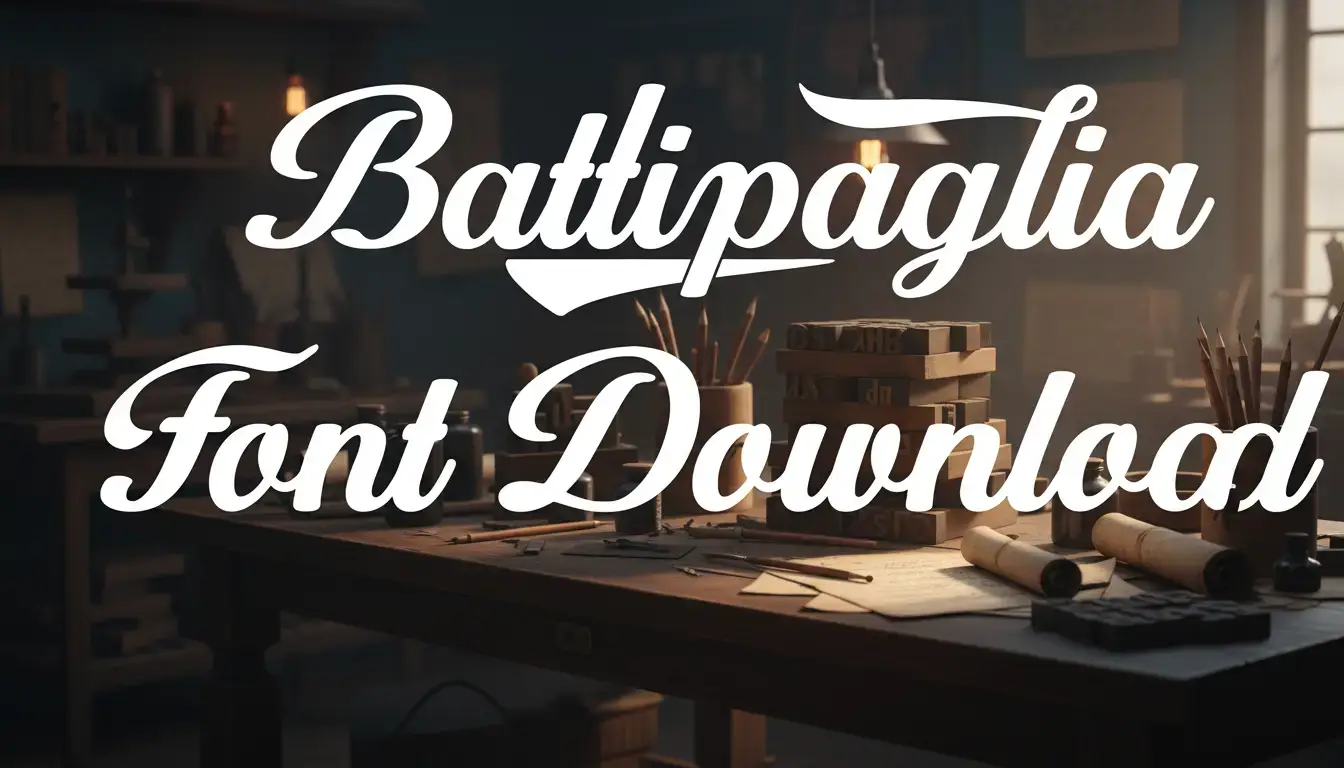
Battipaglia Font
Battipaglia
Battipaglia is a fancy font designed by Ahmad Rofingi. Bold and full of character, it's built to stand out rather than blend in. You can download it for free and test it with your own words in the preview above.
What You Can Type With Battipaglia
You get every letter from A to Z in both cases and all the numbers from 0 to 9, which means Battipaglia can handle full sentences, dates and prices. Everyday marks like &, !, ? and @ are there too. Thanks to its accented letters, it also works for Spanish, French, German, Portuguese and Italian, not just English.
Where Battipaglia Works Best
Battipaglia is a natural fit for posters, logos and eye-catching headlines. Use it for one standout word or headline and let simpler fonts handle the rest.
Does Battipaglia support accented letters?
Yes. Battipaglia includes the accented letters needed for Spanish, French, German, Portuguese and Italian, so it works for more than just English.